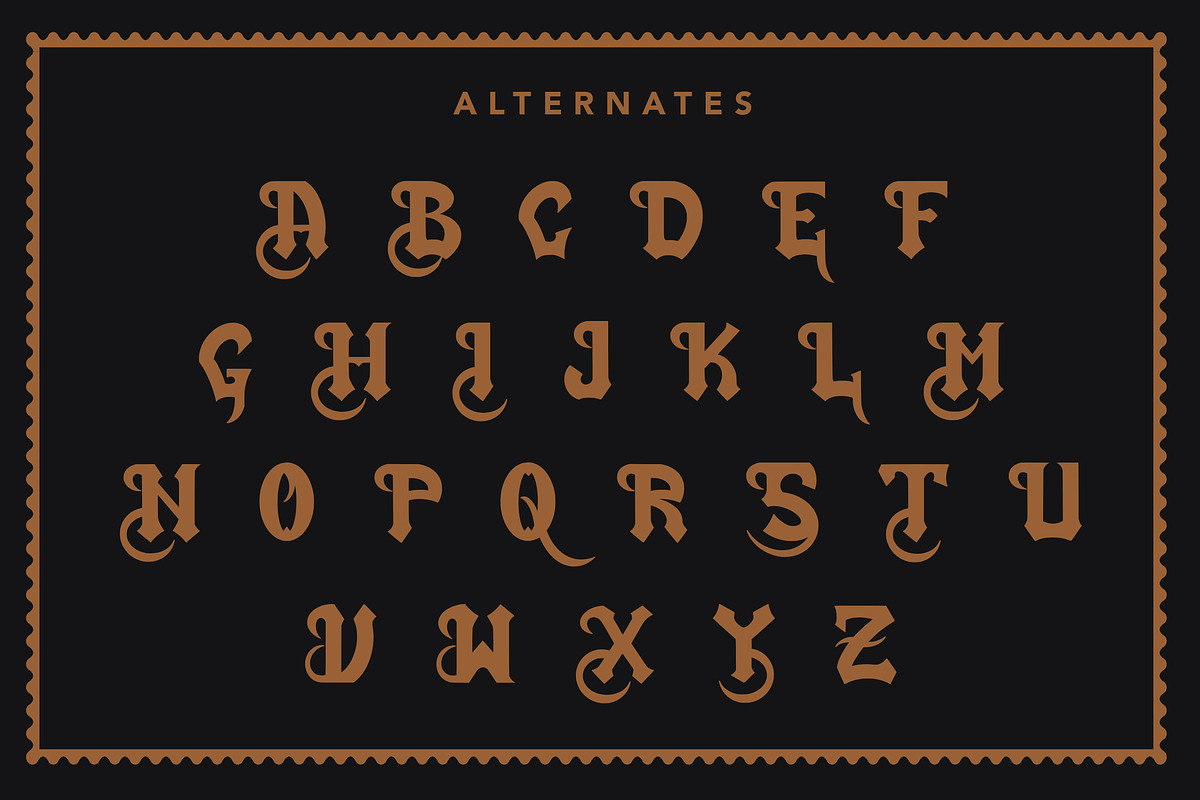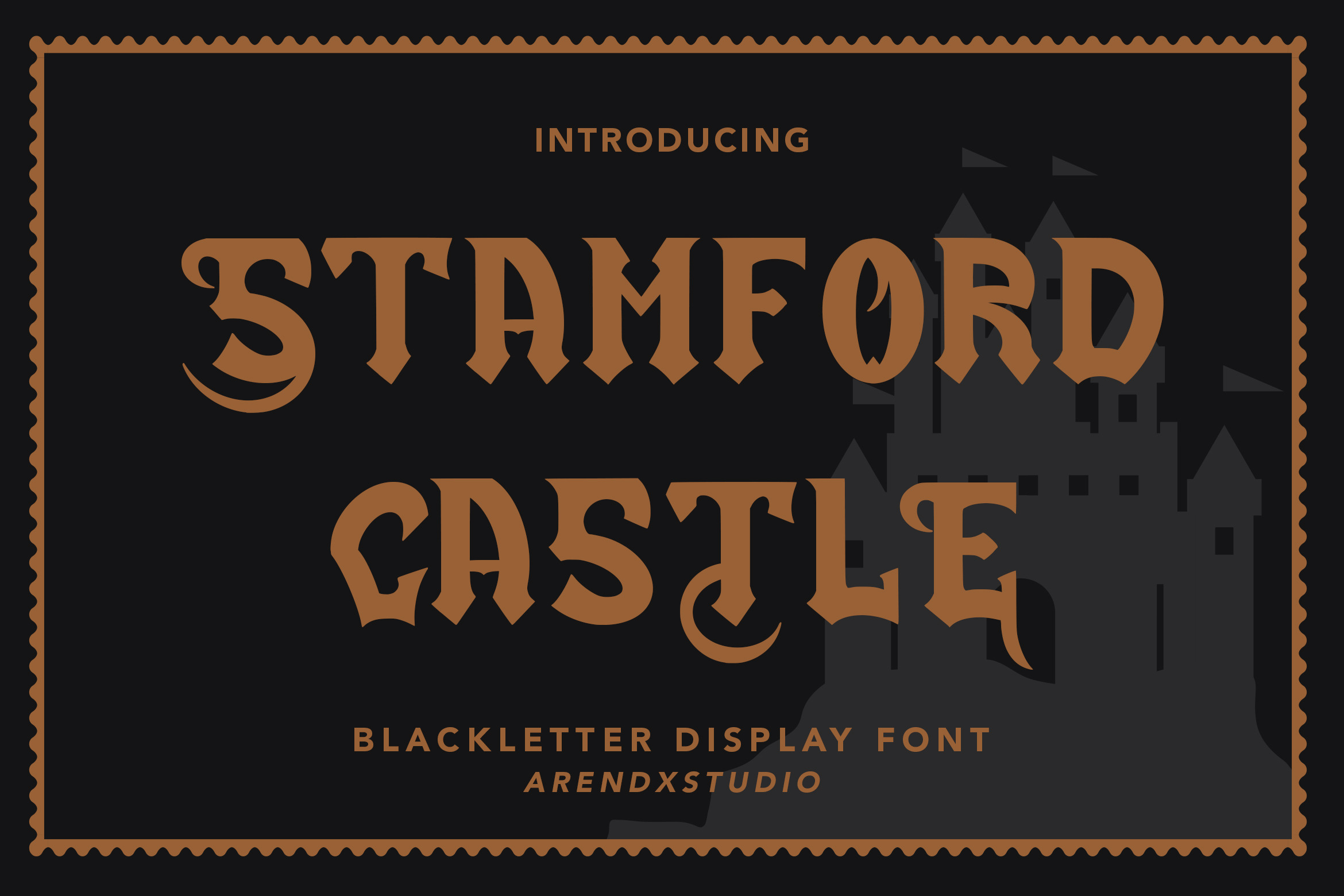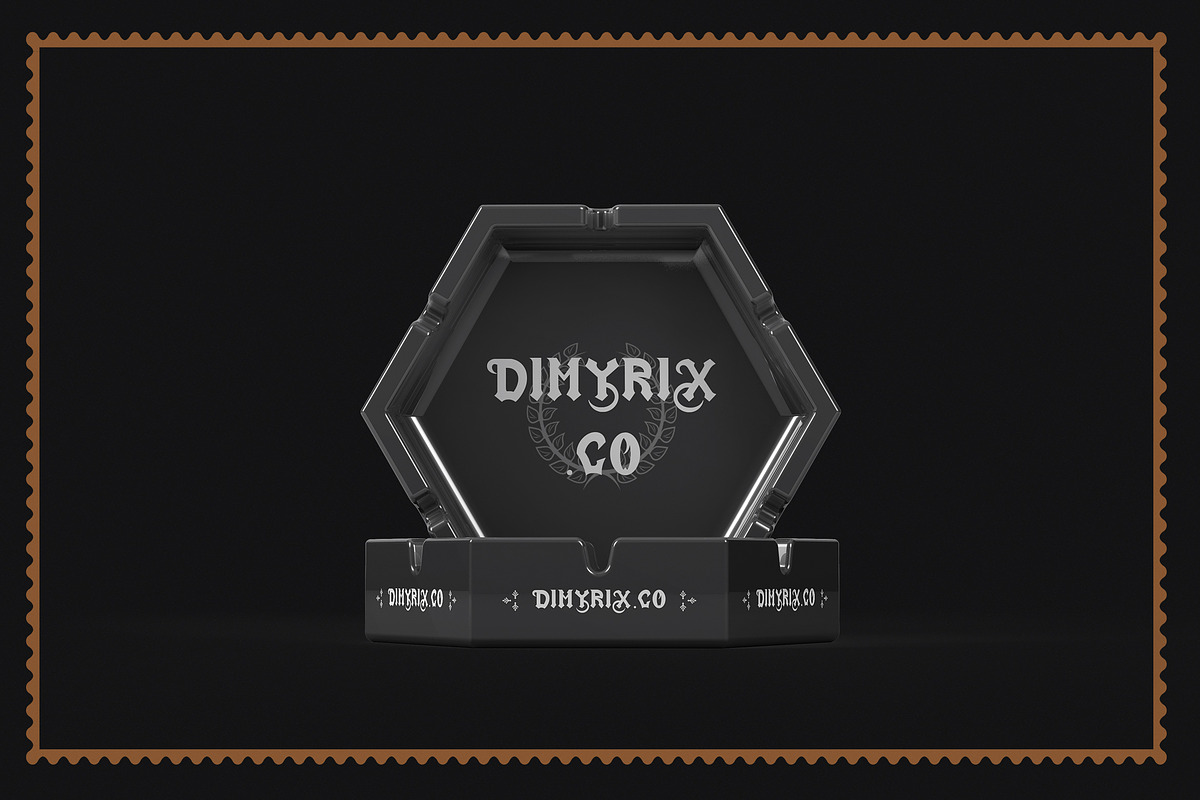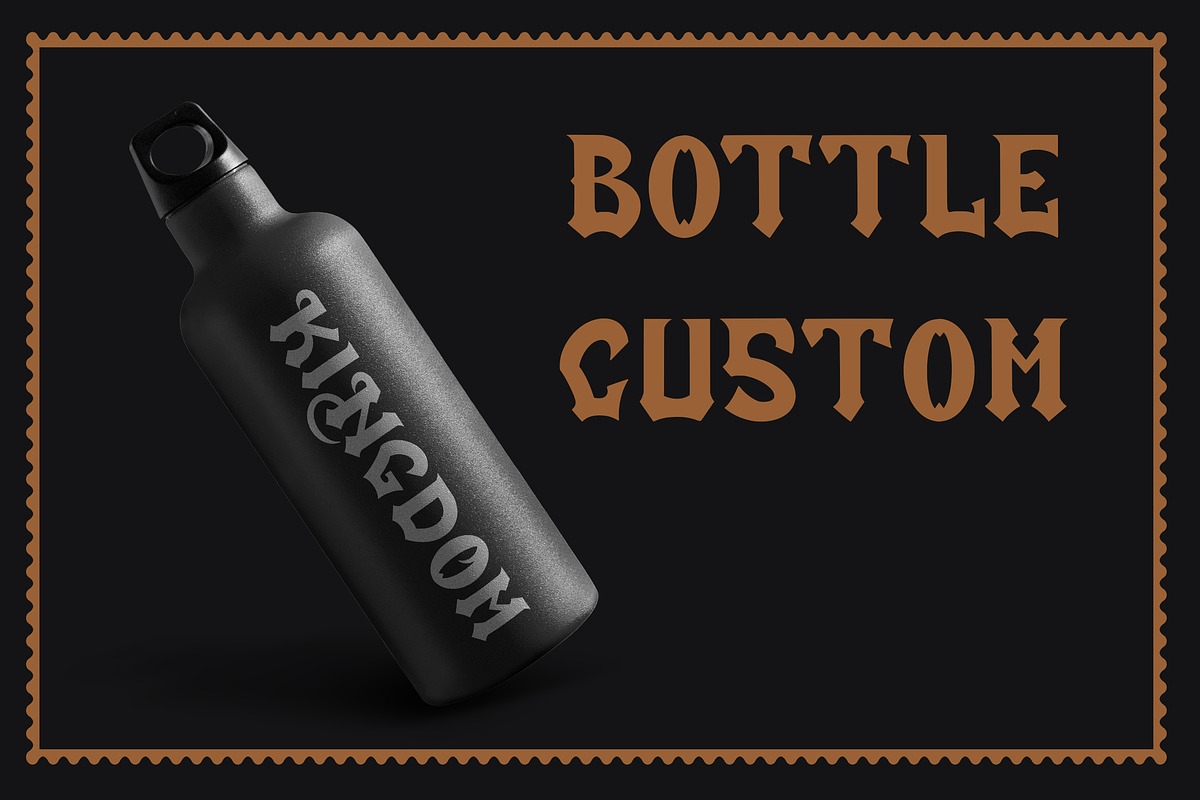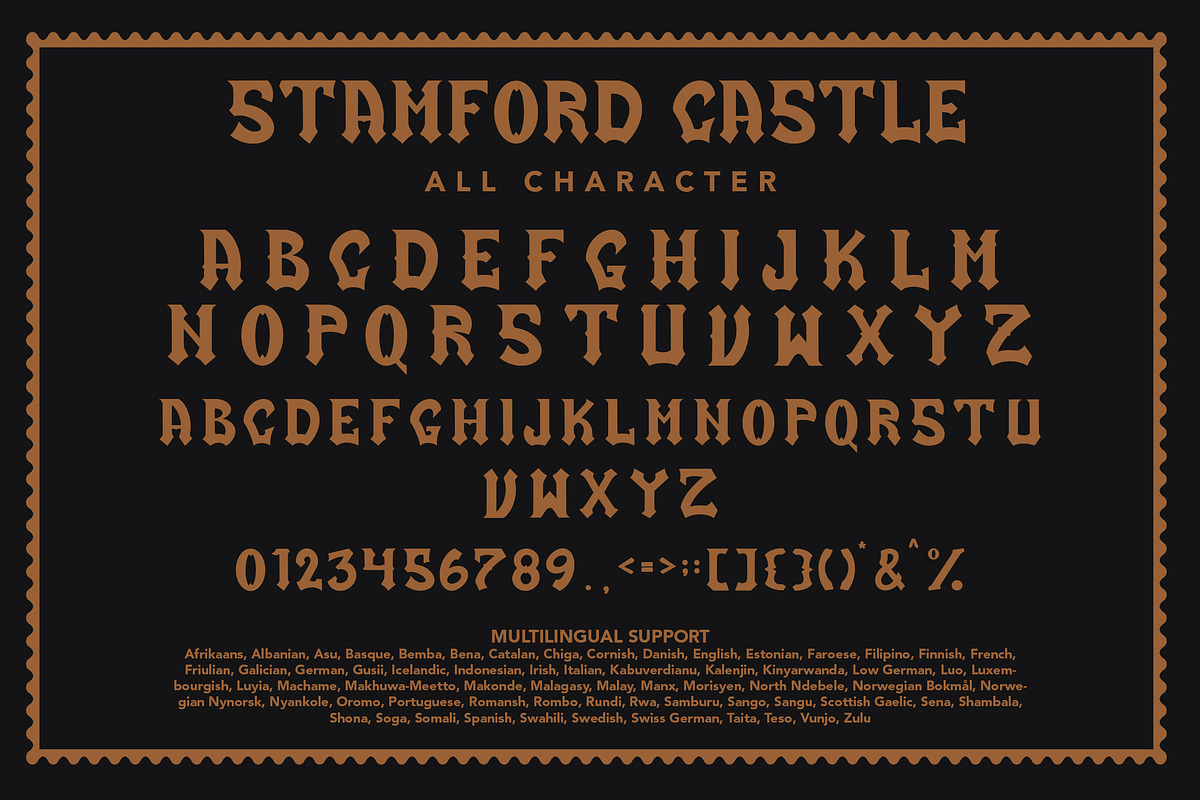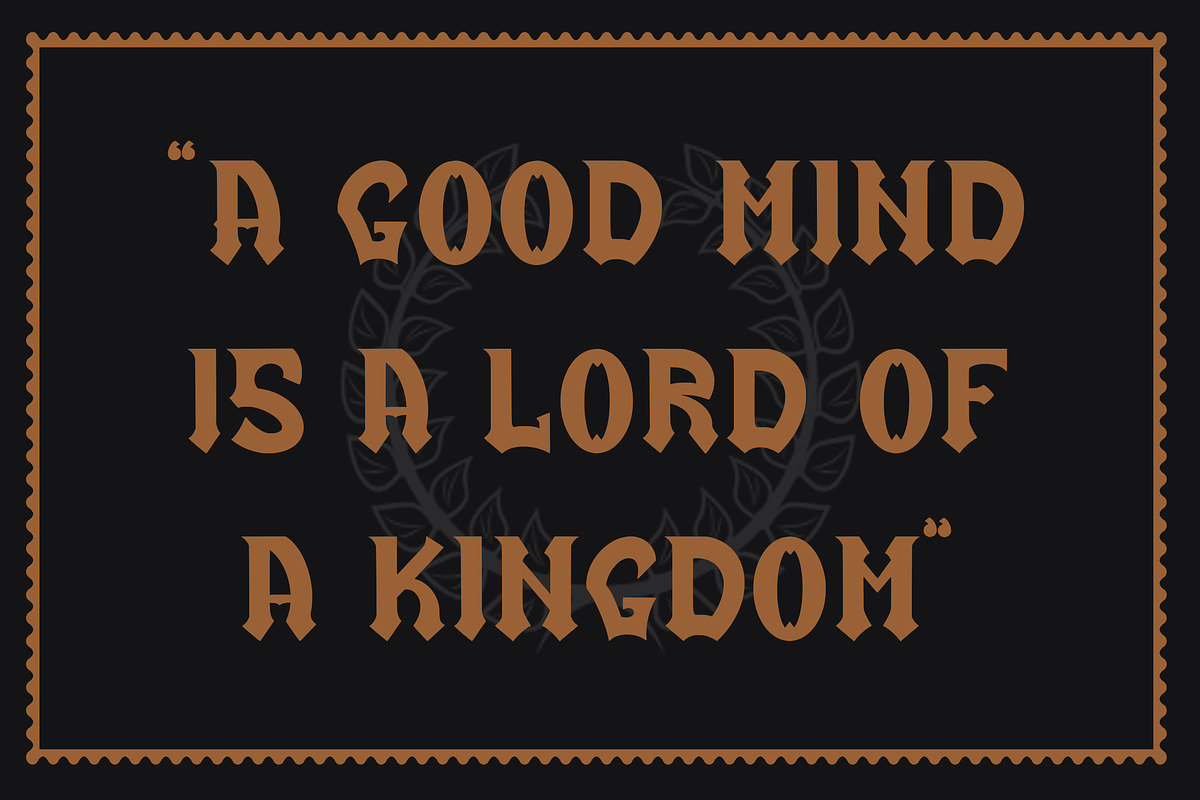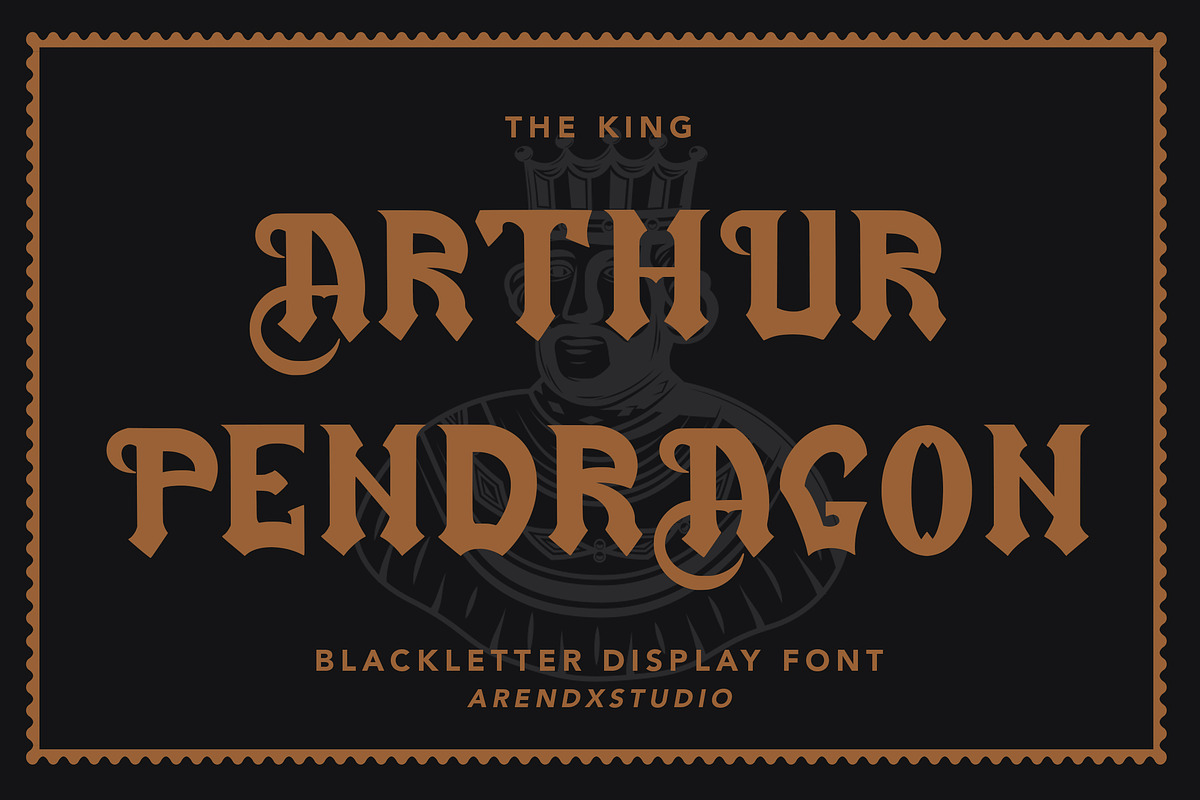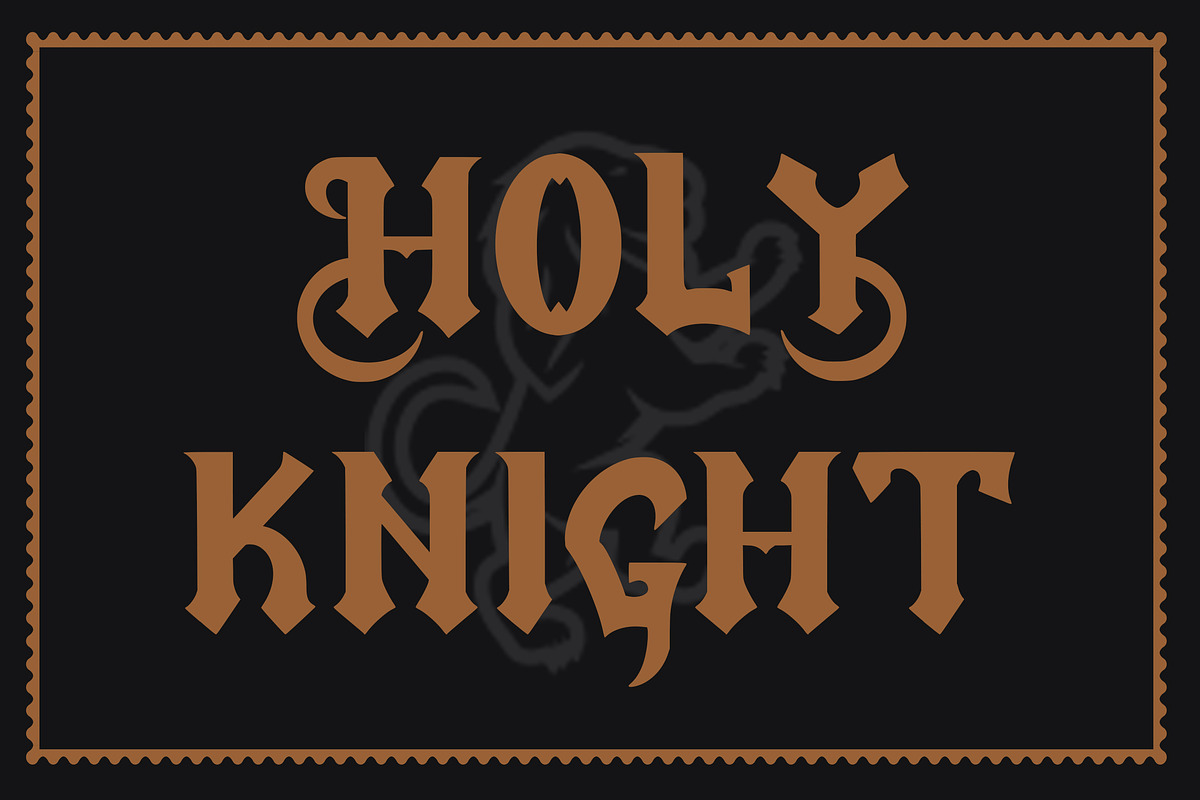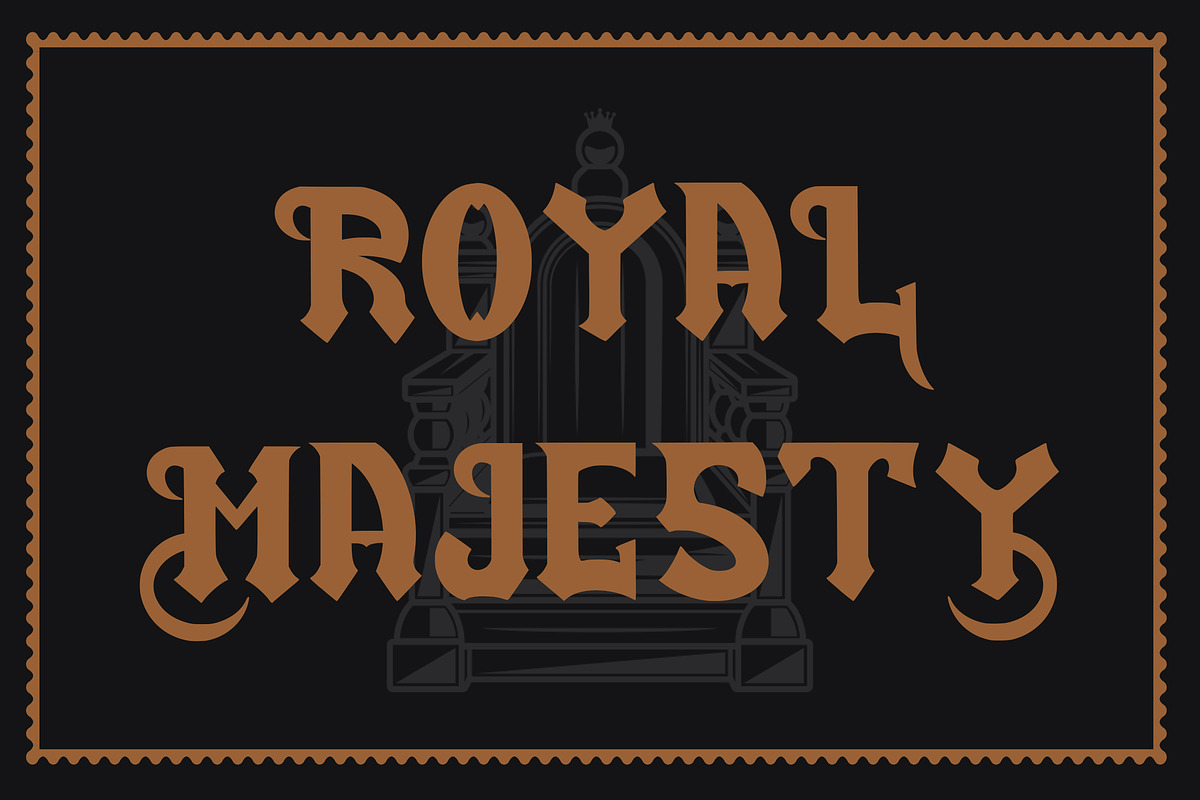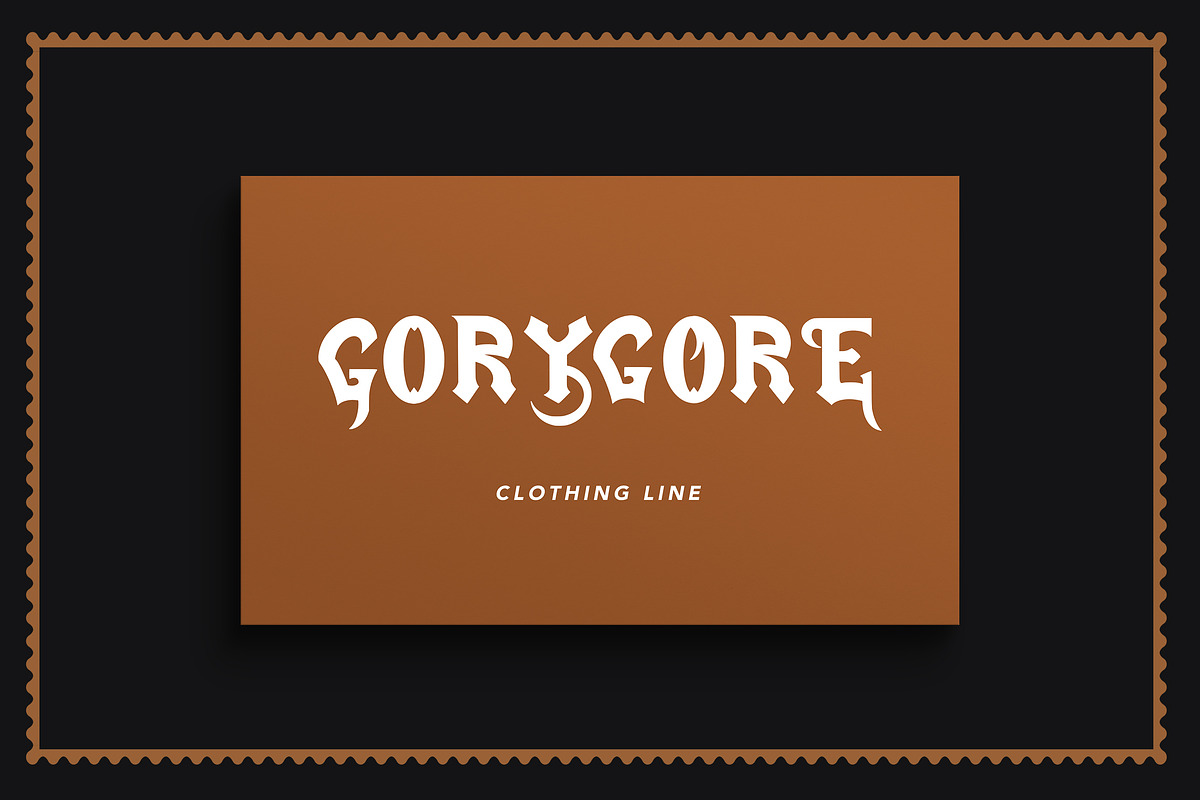
Stamford Castle - Blackletter Font
Stamford Castle - Blackletter Font is a display font that is inspired by gothic and horror style because its shape is very unique and is perfect for any project that you will use with this theme.
Stamford Castle with opentype features such stylistic alternates, stylistic sets & ligatures good for logotype, poster, badge, book cover, tshirt design, packaging and any more.